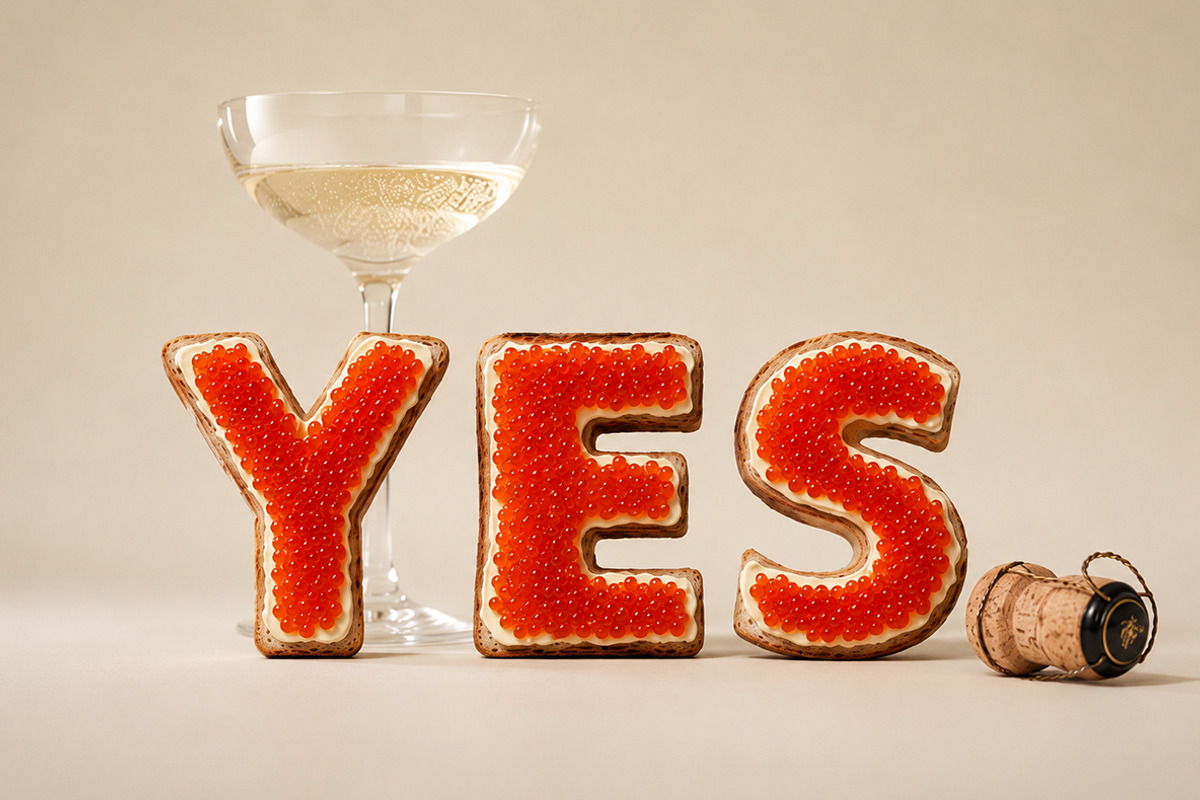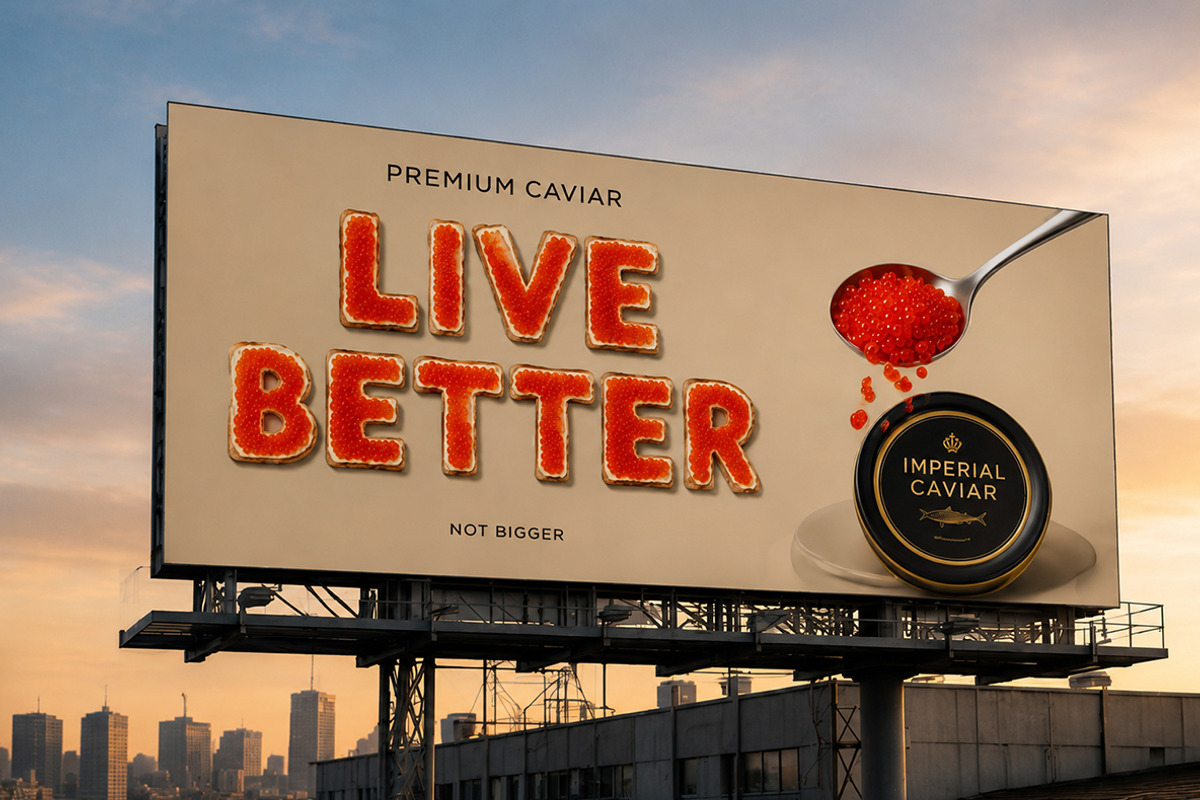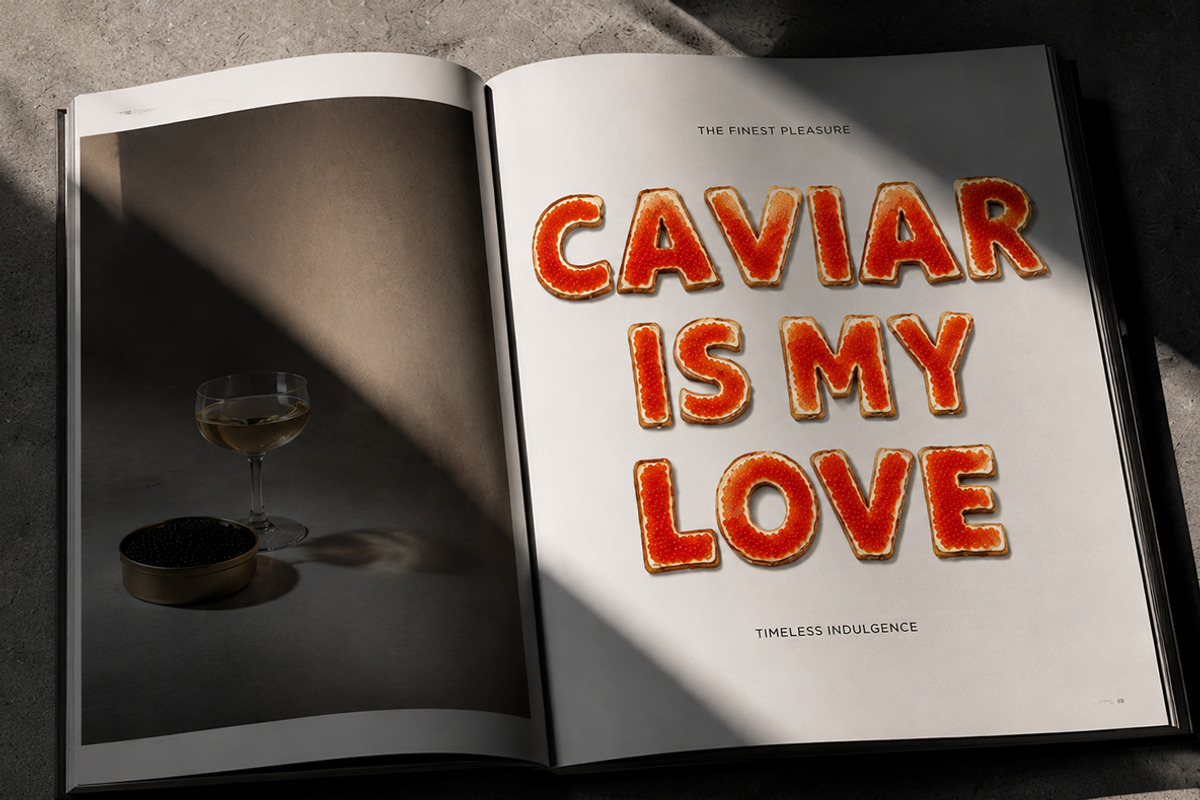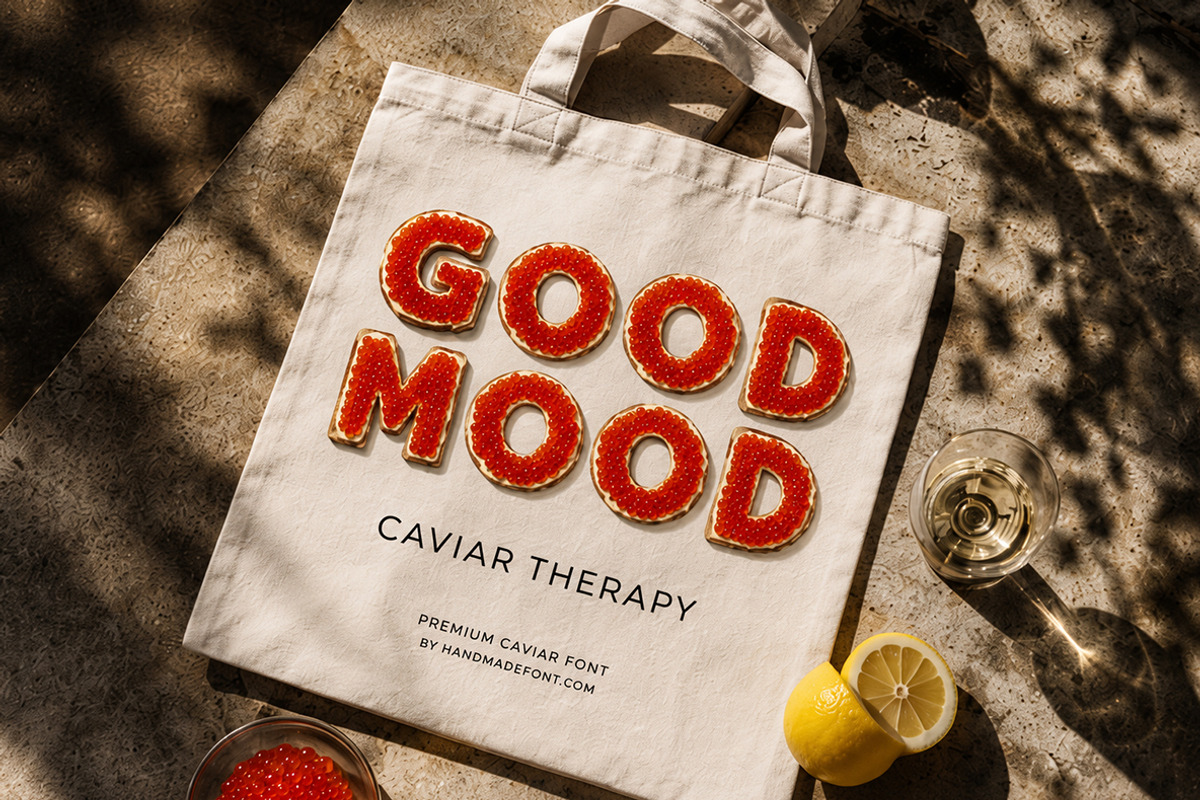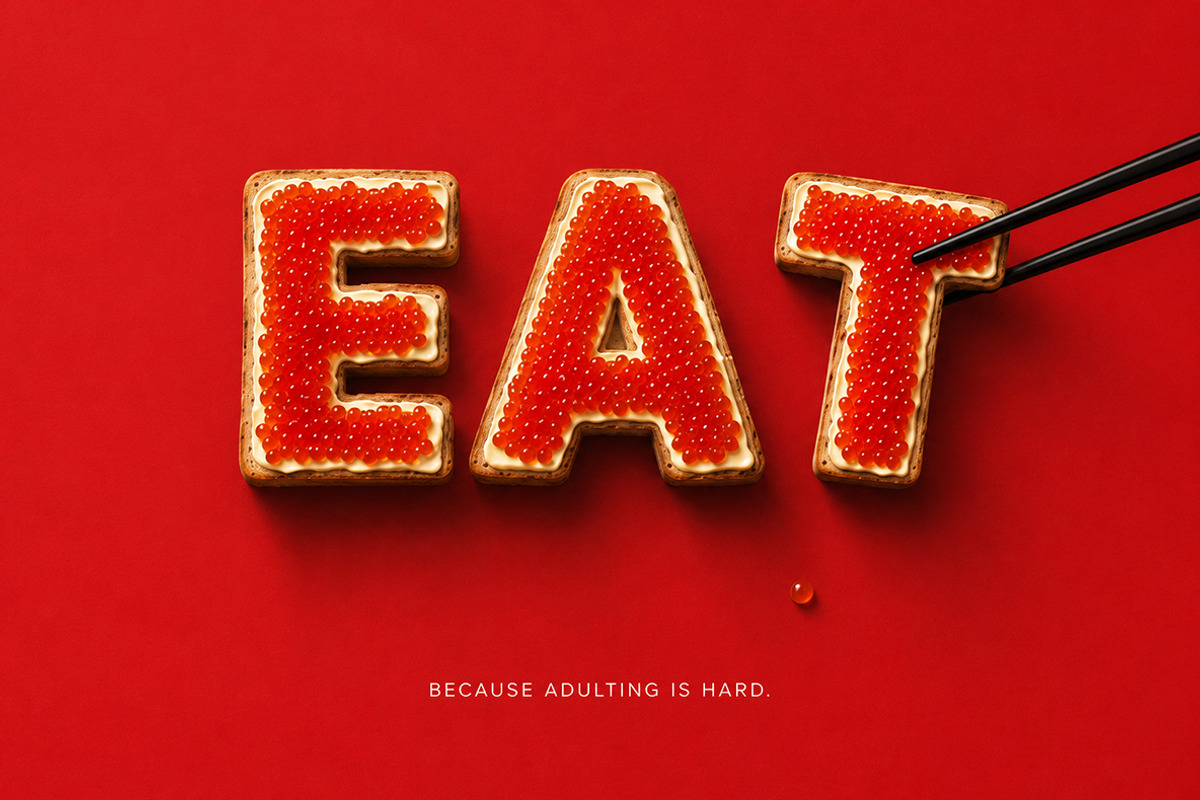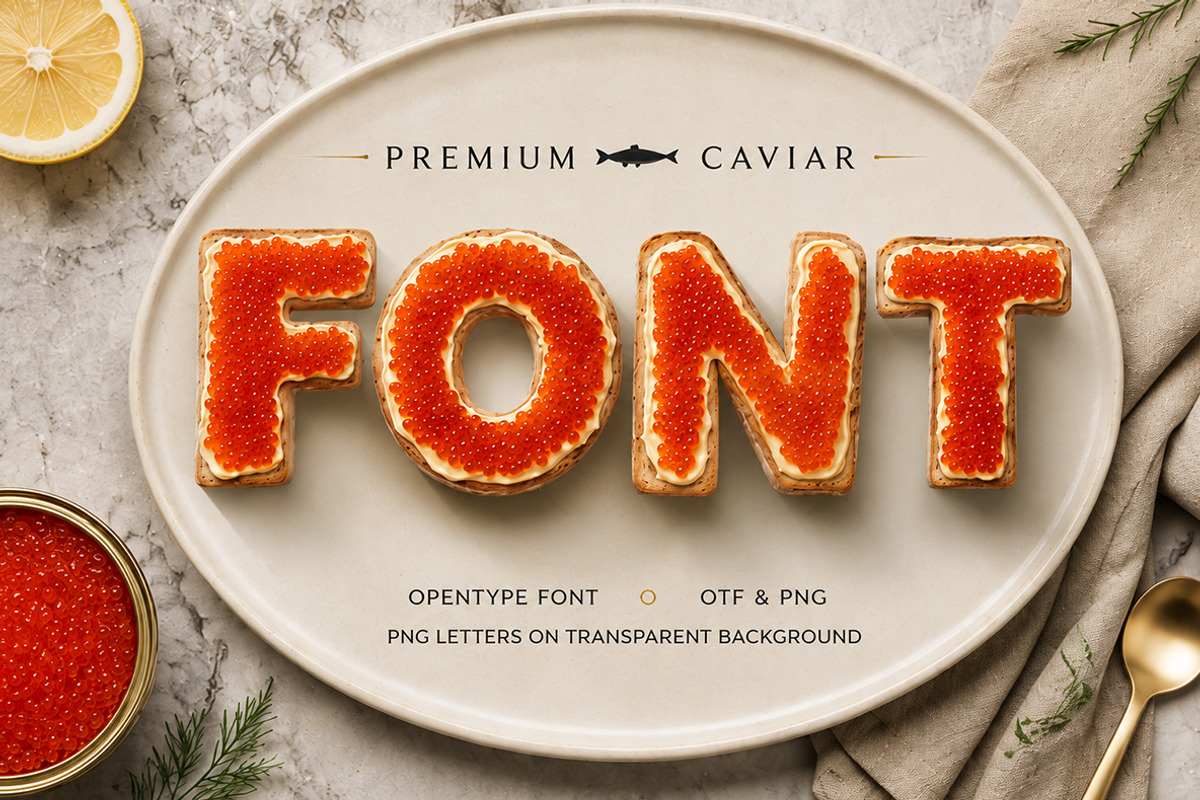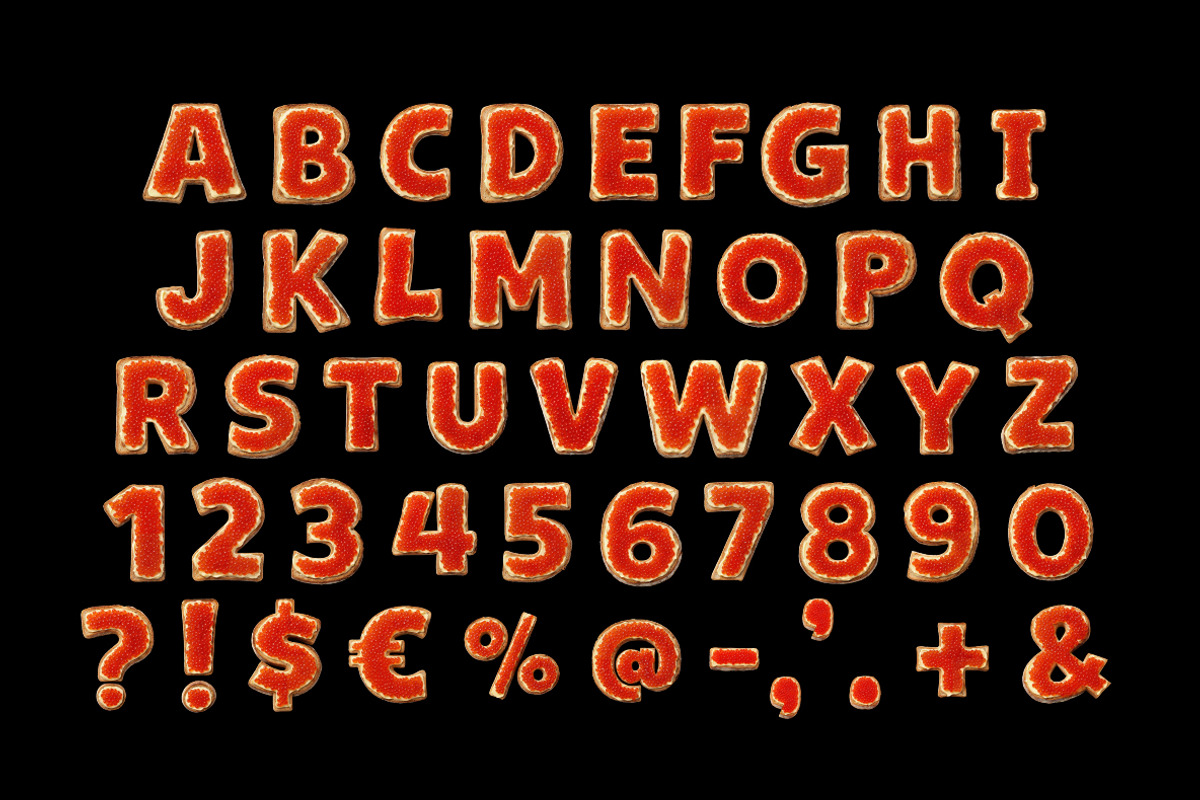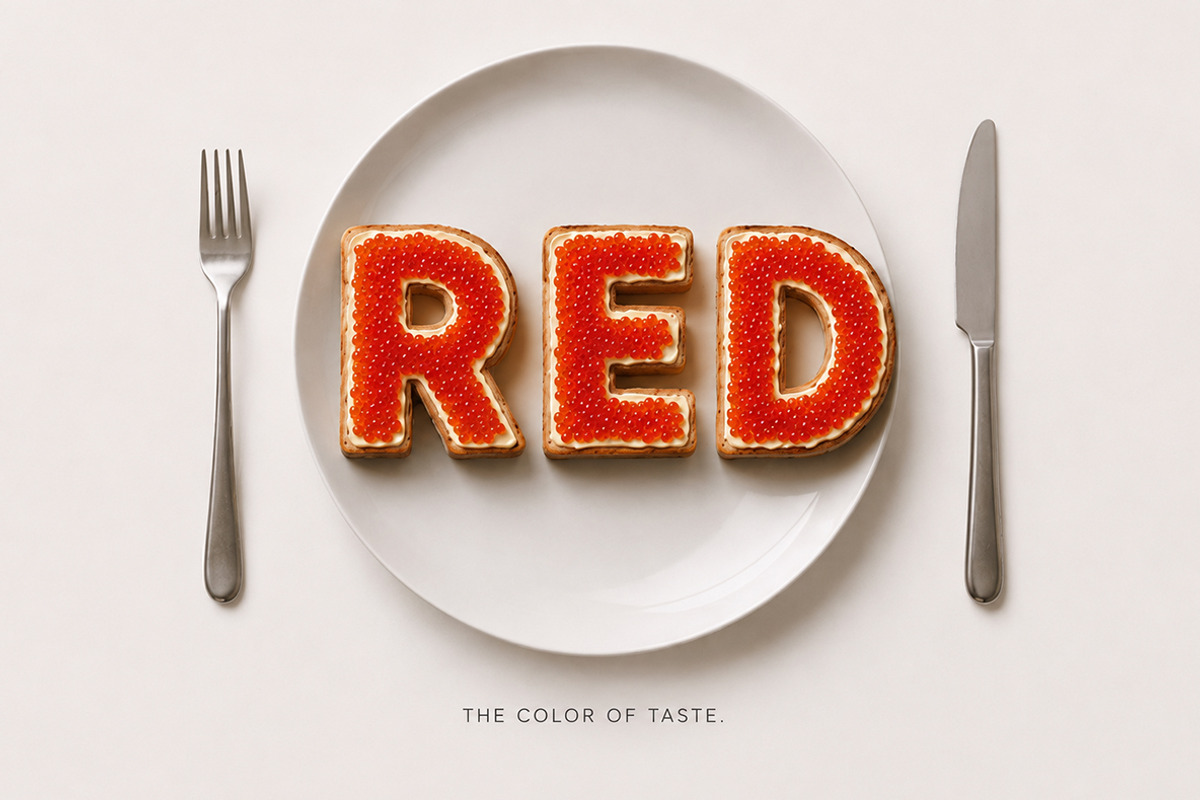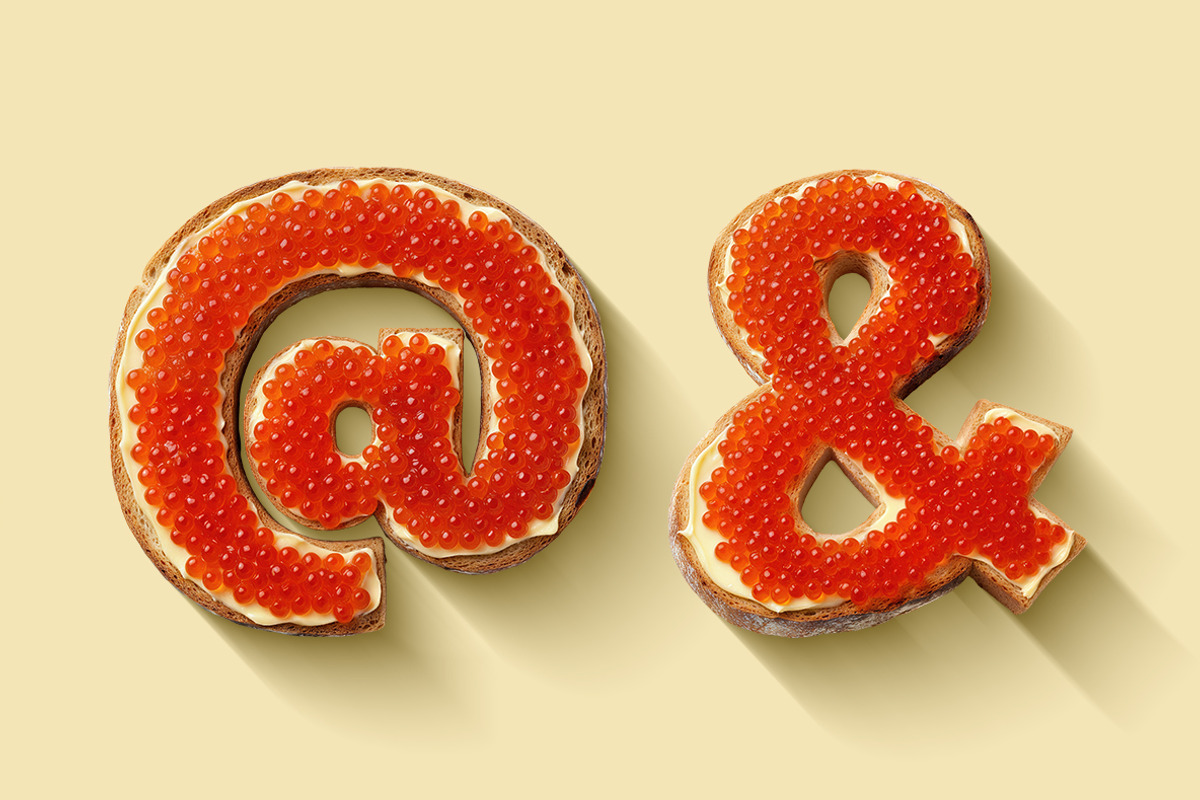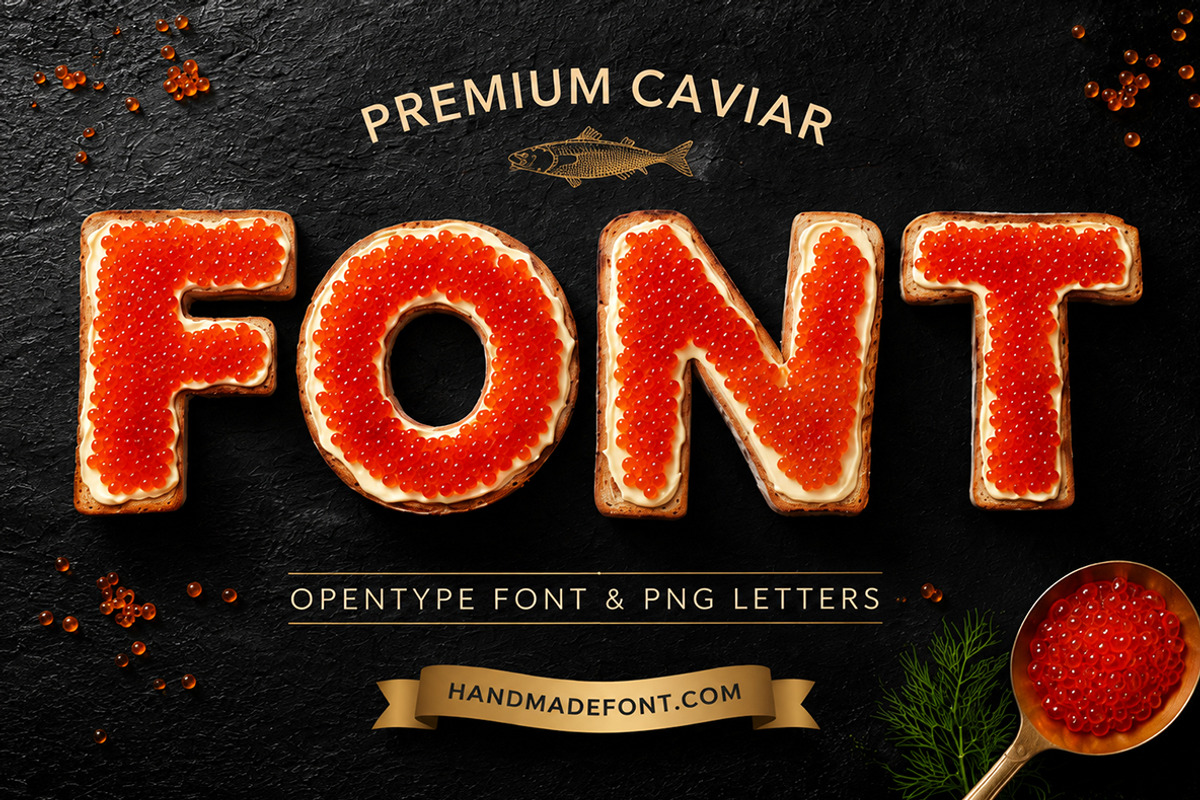
Premium Caviar Font
Premium Caviar Font brings the elegance of gourmet cuisine into typography with handcrafted letters made from realistic slices of bread, creamy butter, and vibrant red caviar. Every character is rich in texture, detail, and delicious visual appeal, making this font perfect for restaurant branding, seafood packaging, menus, luxury food promotions, social media, posters, invitations, and creative editorial projects. The package includes a fully functional OpenType (OTF) font for effortless typing, plus every letter, number, and symbol as individual high-resolution PNG files with transparent backgrounds, giving you complete creative freedom for unique layouts, custom compositions, and eye-catching designs.